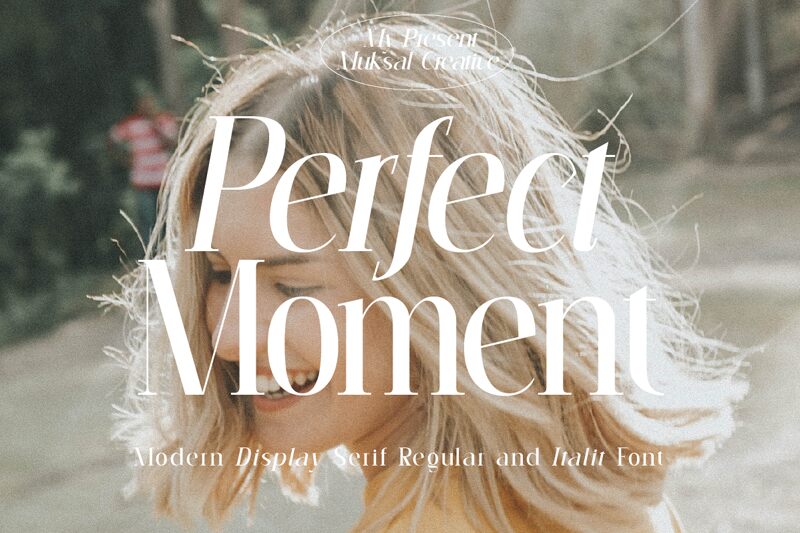
Perfect Moment Italic
Perfect Moment Italic font is a serif typeface designed by Muksal Creative. This italic variant exudes elegance with its high contrast and sophisticated, classic appeal. Its smooth curves create a formal and polished aesthetic, making it an ideal choice for various applications requiring a touch of finesse.
Perfect Moment Italic is perfect use for many work that need elegant vibes including logos, labels, packaging design, branding design, posters, quotes & more.